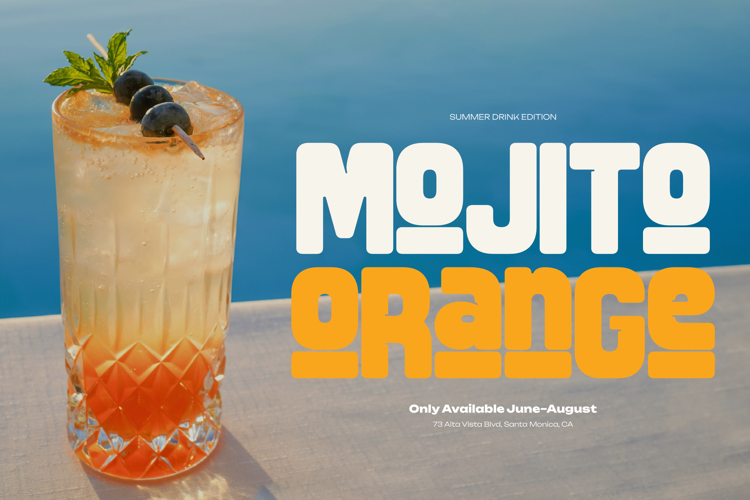
Fredoka Summer Font
Fredoka Summer | Bold Display Sans is suitable for any projects such as: logos, branding projects, homeware designs, product packaging, mugs, quotes, posters, shopping bags, t-shirts, book covers, name card, invitation cards, greeting cards, label, photography, watermark, special events, and all your other lovely projects that need a Bold Display Sans taste.